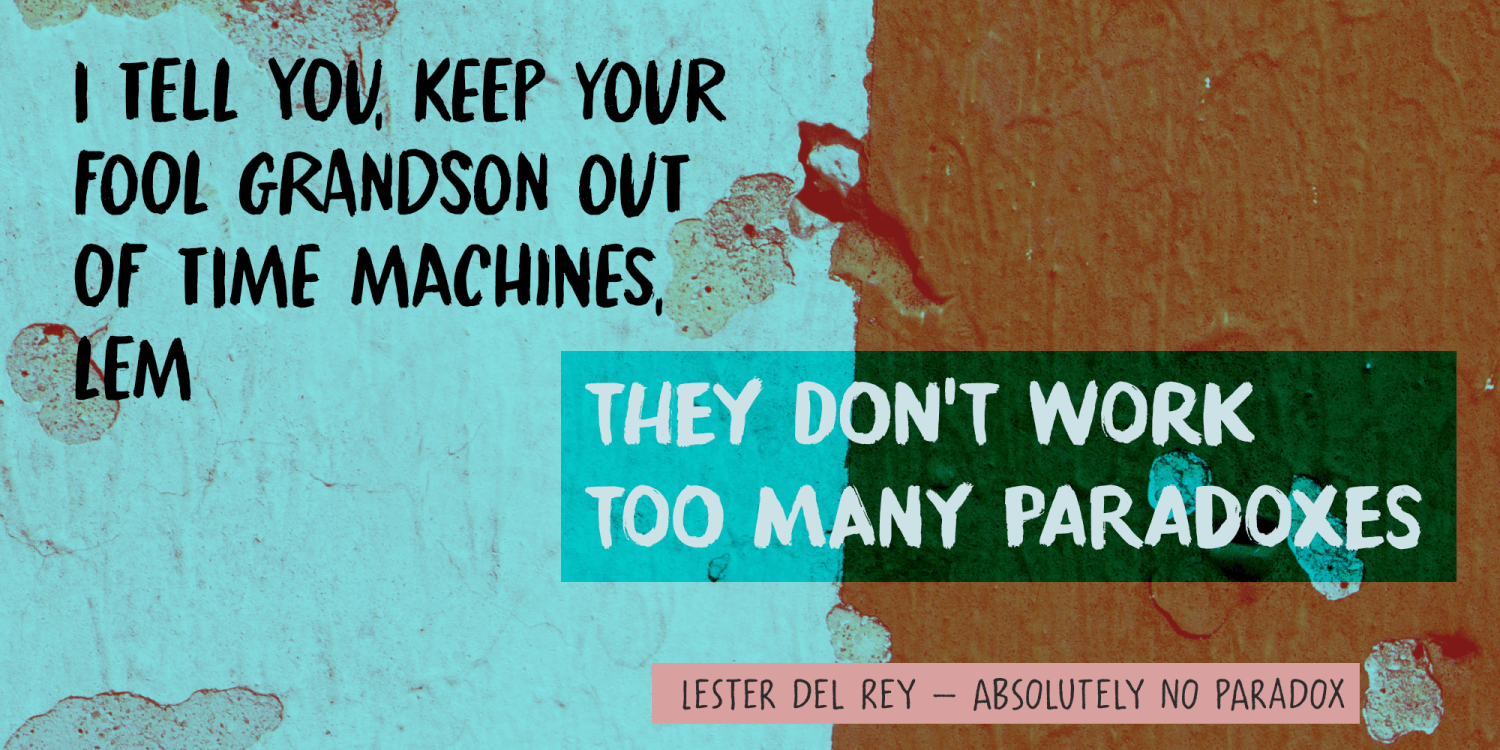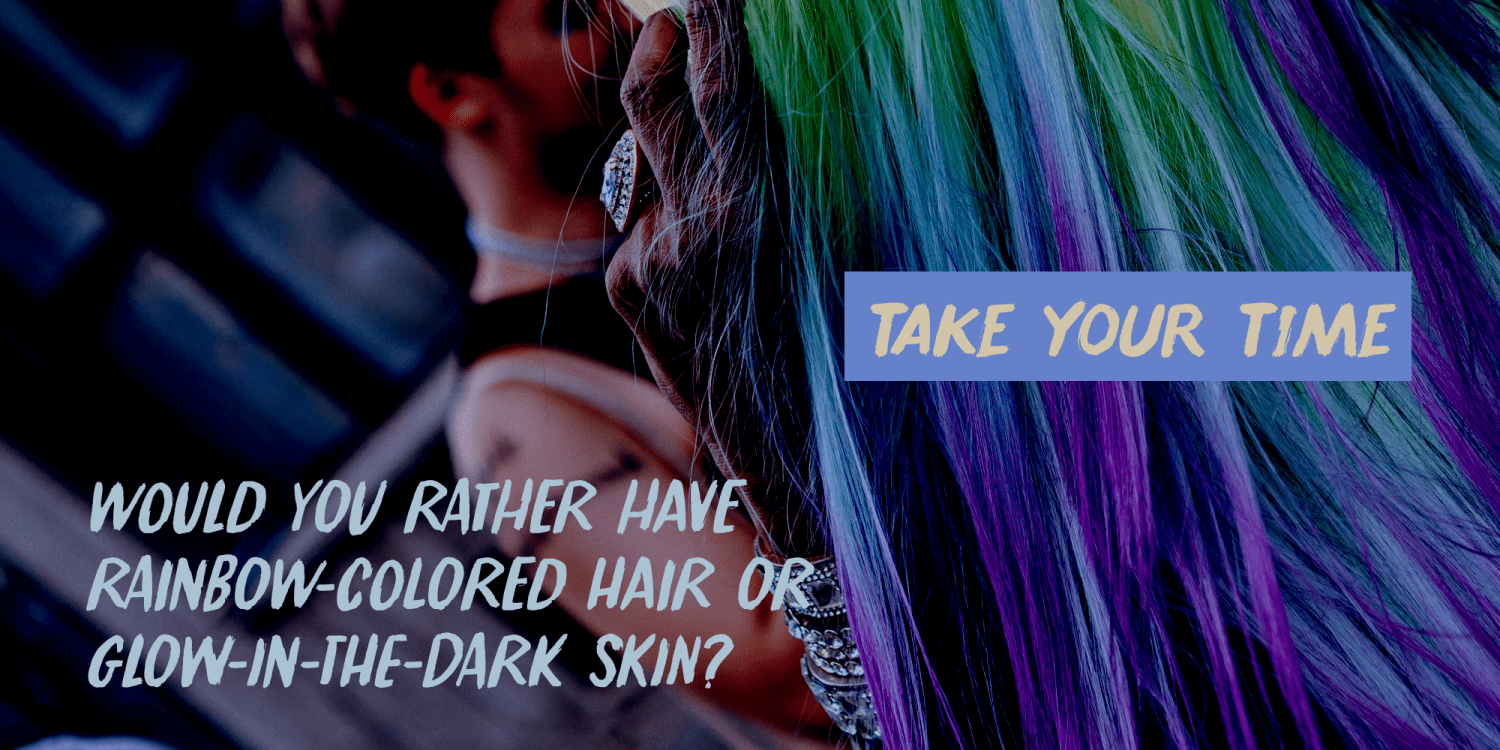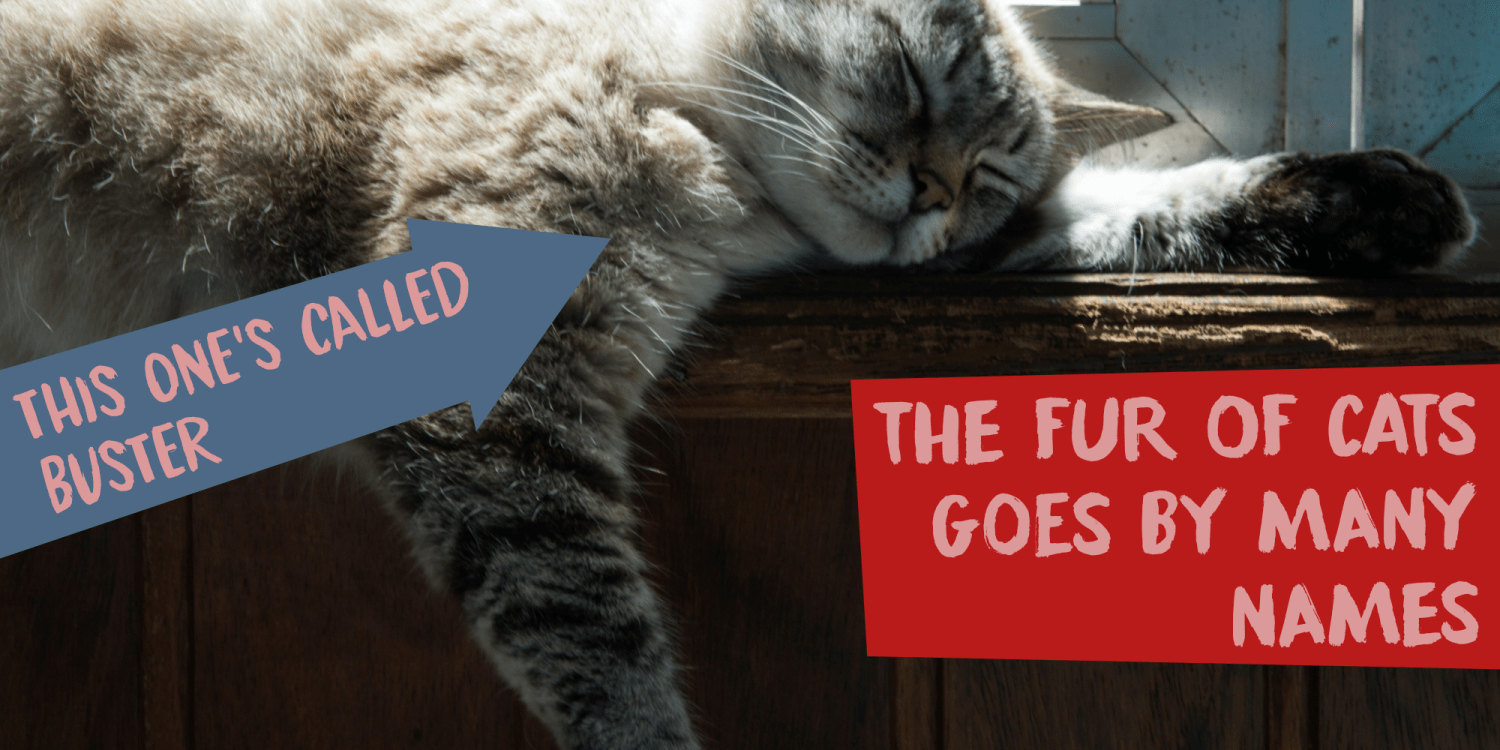
Paradox Brush
Paradox Brush is a handmade font family. It consists of 3 different fonts and their Italics and can be used for a variety of projects. Do you want to market a strong beer? Check! Need some fonts to liven up a Rock festival? We’ve got you covered! Want to publish a horror book? Can do!
Paradox Brush comes with ginormous language support and a no holds barred attitude.